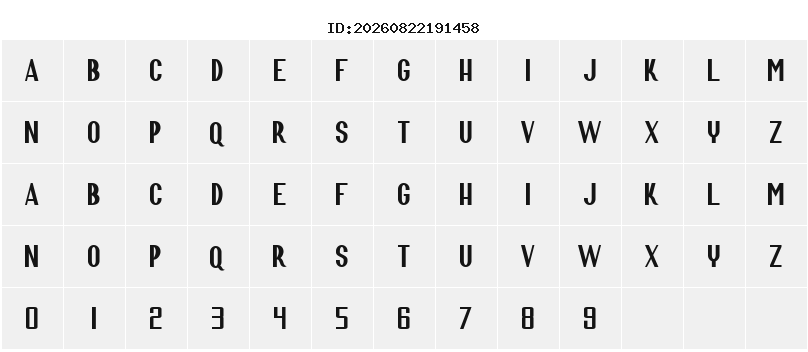
• Font Name: Scara Conquers the Universe
• Full Font Name: Scara Conquers the Universe
• Designer: Scaramanga Productions
• Manufacturer: Scaramanga Productions
Scara Conquers the Universe.ttf is a modern, elegant sans-serif font designed for ultimate readability and visual harmony. Perfect for branding, headlines, web design, and print materials.